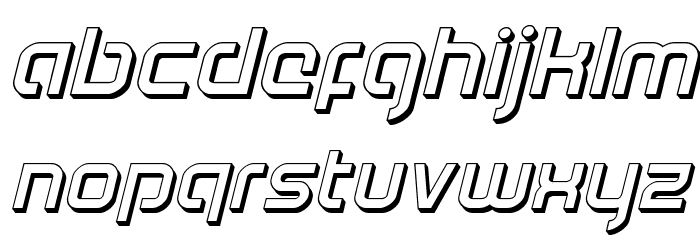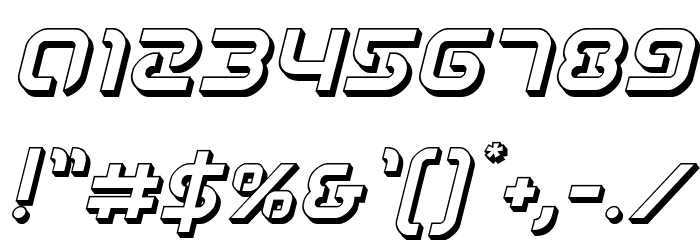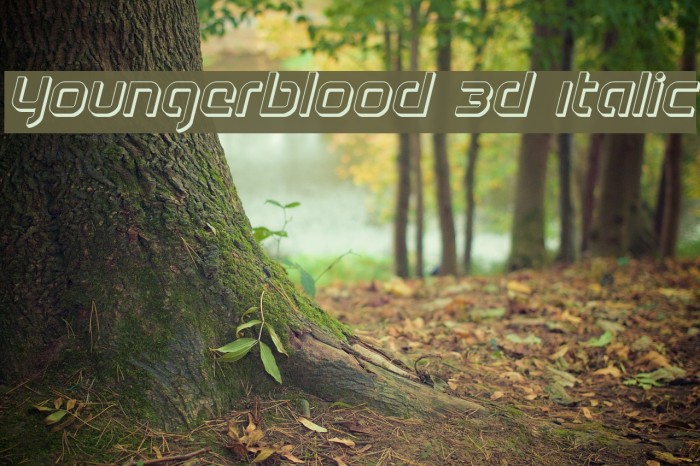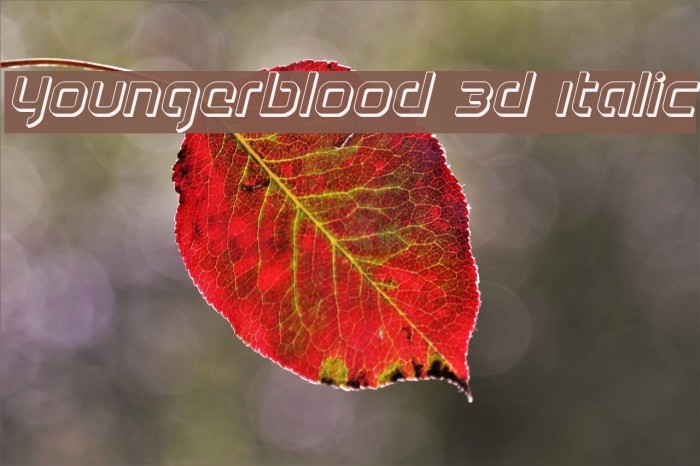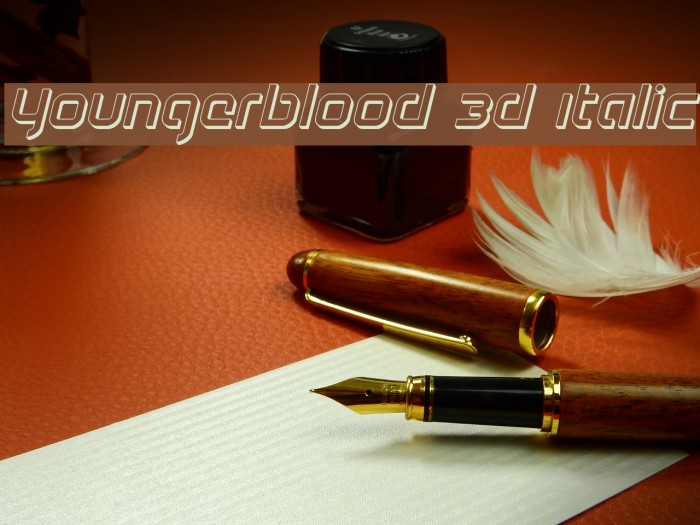
Youngerblood 3D Italic Font
This font presents a bold and dynamic 3D italic style, characterized by its strong geometric shapes and a sense of depth created through shadowing. The letters are slightly slanted, enhancing the italic effect, while the 3D aspect gives it a modern and futuristic look. The characters are well-defined with a consistent stroke width, providing a clean and structured appearance. The font includes both uppercase and lowercase letters, numbers, and a variety of special characters, making it versatile for different design needs. Its unique style makes it stand out, ideal for projects that require a bold statement.
A bold, 3D italic font with a modern and dynamic style.
- Proposed Projects: Ideal for branding, posters, video game graphics, and futuristic-themed designs.